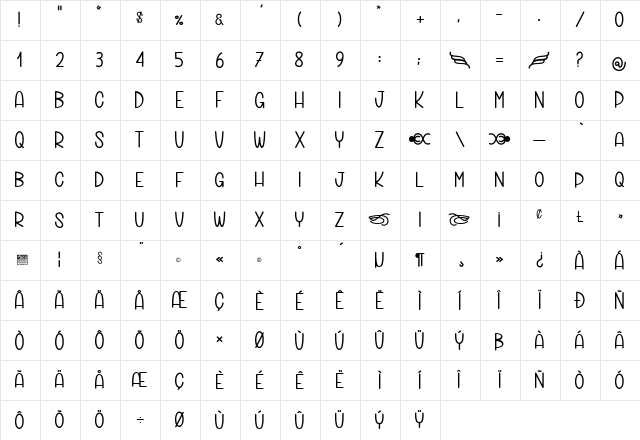
Complete Marbles Trick_PersonalUseOnly Regular glyph index. Displaying only characters natively supported by Marbles Trick_PersonalUseOnly Regular font.
Marbles Trick_PersonalUseOnly is a composed and adaptable typeface that performs quietly and consistently across a wide range of design contexts.
Who designed the Marbles Trick_PersonalUseOnly Regular font?